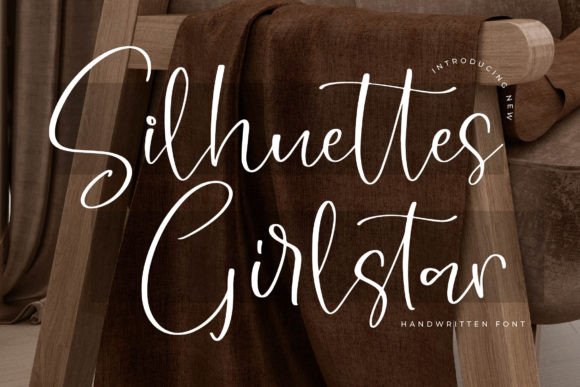
Introducing Silhuettes Girlstar Font: The Epitome of Luxury Script Fonts
In the realm of typography, fonts play a pivotal role in conveying the tone and aesthetic of a brand or project. Among the myriad of fonts available, Silhuettes Girlstar Font stands out as a beacon of elegance and sophistication. This handwritten font, crafted by the talented team at Letterena, is a luxury script font designed to elevate your projects to new heights of refinement and style.
Key Features of Silhuettes Girlstar Font
- Luxury Script Font: Silhuettes Girlstar boasts a luxurious script style, perfect for projects that demand a high-end feel.
- Handwritten Elegance: The font’s handwritten nature lends a personal and intimate touch to your designs, making them more relatable and engaging.
- Versatile: Suitable for a wide range of projects, including logos, branding, homeware designs, product packaging, and more.
- Serif Taste: The font’s serif details add a classic and sophisticated touch, ideal for projects that require a traditional yet luxurious feel.
Endless Project Possibilities with Silhuettes Girlstar Font
Silhuettes Girlstar Font is incredibly versatile, making it suitable for a myriad of projects. Here are some ideas to get you started:
- Logos and Branding: Create a lasting impression with a luxurious logo that speaks to your brand’s high-end values.
- Homeware Designs: Add a touch of elegance to your homeware designs, from invitations to stationery.
- Product Packaging: Elevate your product packaging with a sophisticated font that reflects your brand’s luxury status.
- Mugs and Apparel: Design eye-catching mugs, t-shirts, and other apparel that exudes style and sophistication.
- Posters and Quotes: Create stunning posters and quotes that convey your message in a luxurious and refined manner.
- Book Covers and Name Cards: Make a statement with book covers and name cards that showcase your attention to detail and commitment to luxury.
- Invitation Cards and Greeting Cards: Impress your guests with beautifully designed invitation cards and greeting cards.
- Labels and Photography: Add a touch of elegance to your labels and photography with a font that screams luxury.
- Special Events: Make your special events unforgettable with luxurious stationery and designs.
The Benefits of Using Silhuettes Girlstar Font
Silhuettes Girlstar Font offers numerous benefits that make it an ideal choice for designers and brands looking to elevate their projects. Some of these benefits include:
- Unique and Exclusive: The font’s unique design ensures that your projects stand out from the crowd.
- High-Quality: Silhuettes Girlstar Font is crafted with attention to detail, ensuring a high-quality finish that reflects your brand’s values.
- Easy to Read: The font’s clear and elegant design makes it easy to read, even at smaller sizes.
- Customizable: The font’s versatility allows for endless customization possibilities, ensuring it adapts to your project’s specific needs.
Design Tips for Working with Silhuettes Girlstar Font
To get the most out of Silhuettes Girlstar Font, here are some design tips to keep in mind:
- Pair with Neutrals: Pair the font with neutral colors to let it take center stage and showcase its elegance.
- Experiment with Sizes: Play with different font sizes to create visual hierarchy and add depth to your designs.
- Add Texture: Add texture to your designs to give them a more organic and luxurious feel.
- Keep it Simple: Don’t overcomplicate your designs – keep them simple and let the font speak for itself.
Silhuettes Girlstar Font is a game-changer for designers and brands looking to elevate their projects with a touch of luxury. Its unique design, versatility, and high-quality finish make it an ideal choice for a wide range of projects. Whether you’re looking to create a stunning logo, elegant homeware designs, or sophisticated product packaging, Silhuettes Girlstar Font is sure to impress.